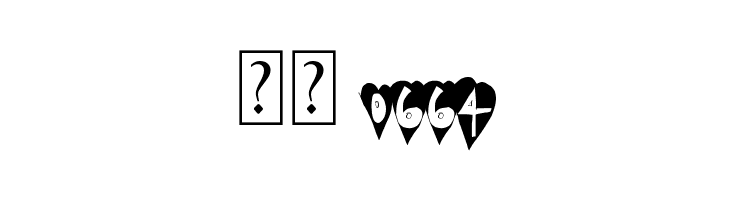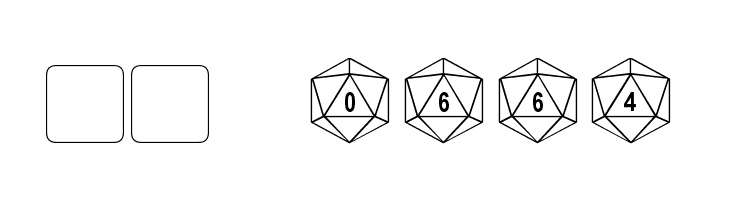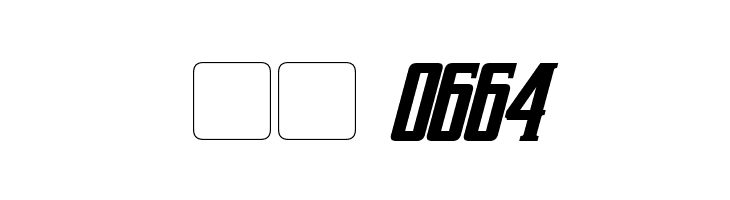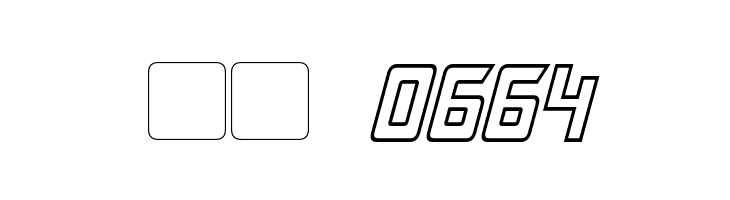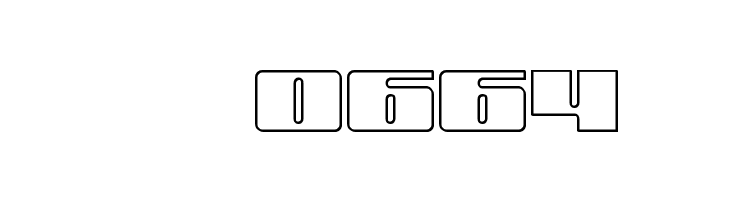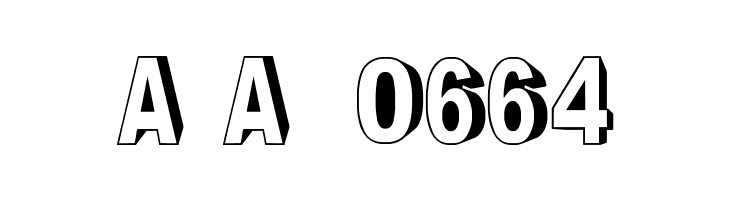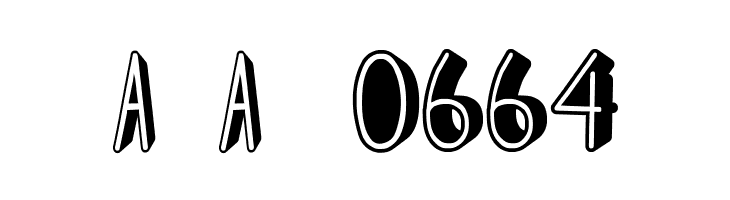
A decorative font with uppercase letters in ornamented circles topped with bows.
A geometric, hollow, and bold font with angular lines and a futuristic style.
A playful, heart-shaped decorative font with bold contrast.
Bold, geometric social icons with uppercase sans-serif text.
Geometric twenty-sided polygon design with bold numbers.
A bold, hollow, italic font with a modern, geometric style.
A bold, italicized font with sharp angles and high contrast, perfect for dynamic headlines.
A bold, futuristic, hollow, and italicized font with a condensed style.
Bold, geometric mountain icons with varied embellishments.
A bold, snake-themed decorative collection with high contrast and intricate designs.
A bold, playful font with letters in tilted squares, offering a dynamic and energetic look.
A bold, geometric font with an embossed, three-dimensional effect for impactful headlines.
A bold, 3D font with shadow effects and geometric design.
A bold, cartoonish font with thick outlines and playful character design.
A bold, dynamic font with a 3D effect and strong, angular design.
A playful, decorative font with bold letters inside ornament-like circles topped with bows.
A QR code-inspired decorative font with each character as a distinct QR symbol.
A bold, italicized font with a modern, dynamic style and tight character spacing.
A horror-themed, dripping font with bold, jagged characters.
A playful, bold, and hollow italic font with rounded characters.
Alphabet formed using binder clips in a creative, artistic style.